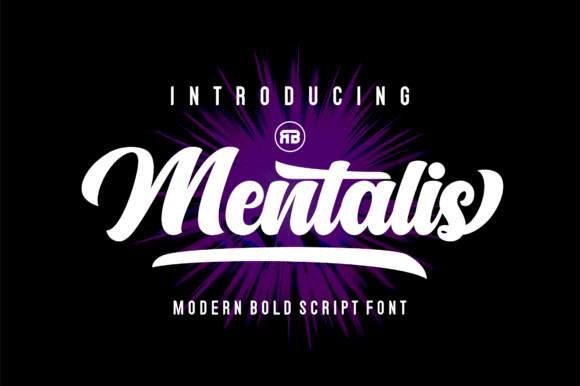
Journey into the world of Mentalis, a script font that dances like a melody on the page, a masterstroke of elegance and boldness that leaves an enduring impression on the beholder's heart. Crafted with meticulous care by the skilled artisans at RGB Studio, Mentalis stands as a testament to the beauty of carefully drawn curves, each letter a work of art.
With its unique form, Mentalis transcends the boundaries of ordinary fonts, bringing a fresh and distinctive voice to your creative projects. It's a font that commands attention, yet remains approachable, making it suitable for a wide range of design endeavors. Its versatility knows no bounds, from enchanting wedding invitations to captivating social media posts, Mentalis effortlessly elevates your designs to new heights.
Immerse yourself in a world of infinite possibilities with Mentalis. Whether you're a seasoned designer or just starting your creative journey, this font is the perfect addition to your arsenal. Its intuitive design and PUA encoding make it a breeze to use, ensuring that your ideas flow effortlessly onto the page. Let Mentalis ignite your imagination and unlock a world of creative possibilities.
Step into the extraordinary with Mentalis, a font that's more than just a collection of letters; it's an experience. Its bold and confident strokes command attention, while its intricate details and flowing lines add a touch of sophistication. Whether you're creating logos, branding materials, or simply adding a personal touch to your digital creations, Mentalis will elevate your designs and leave a lasting impact on your audience.